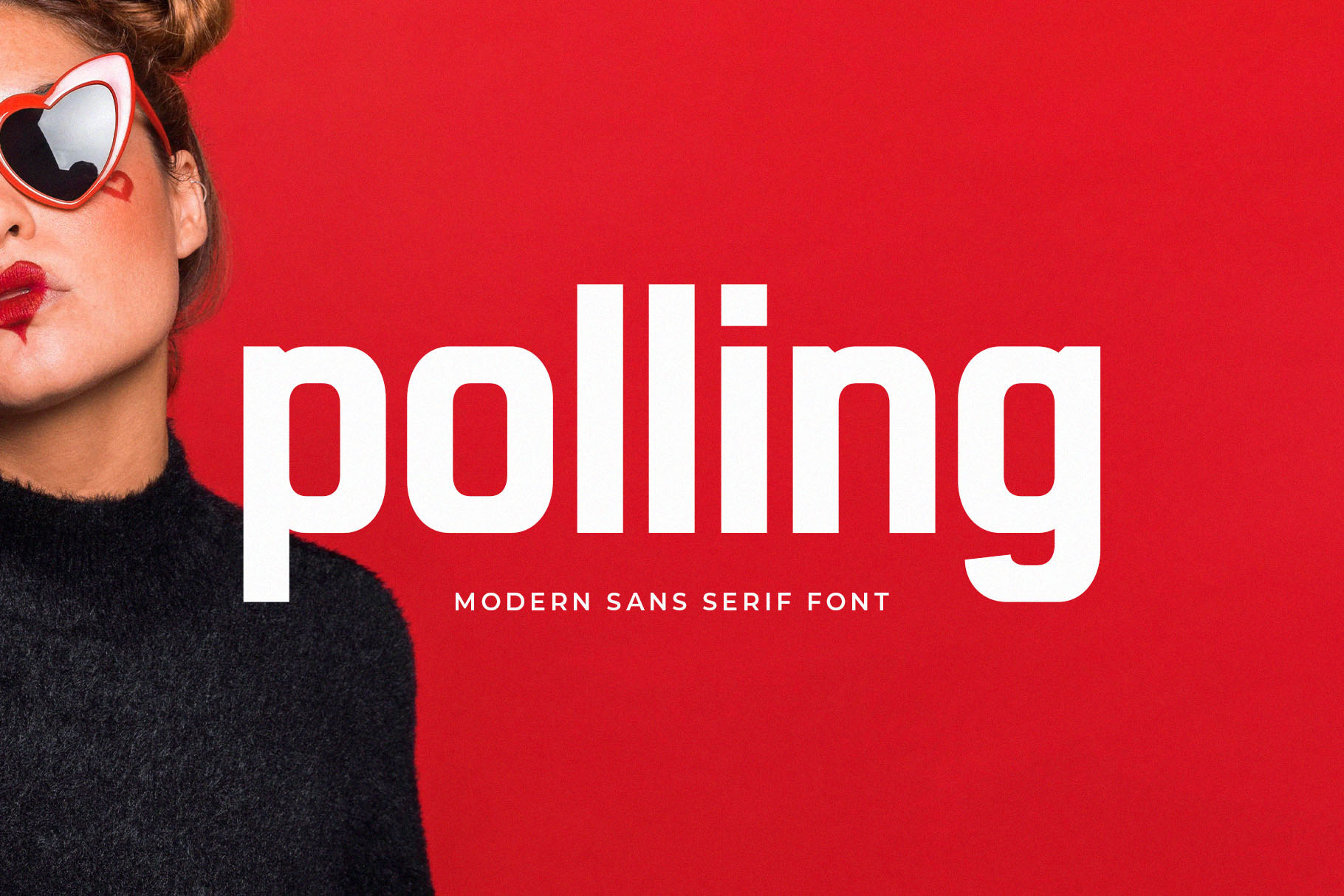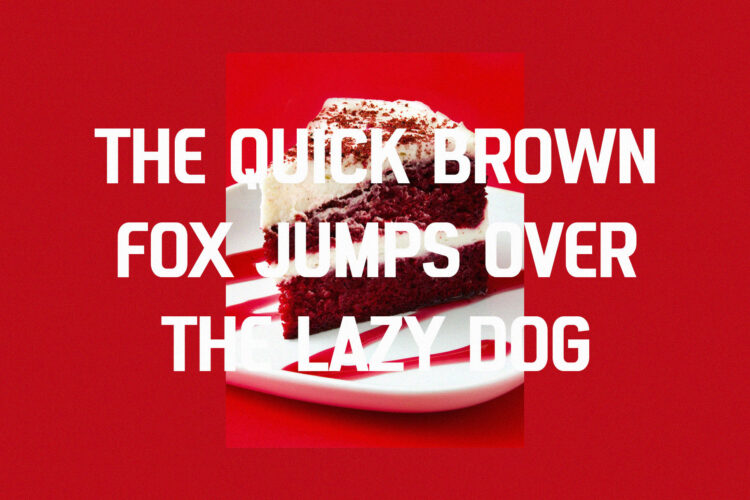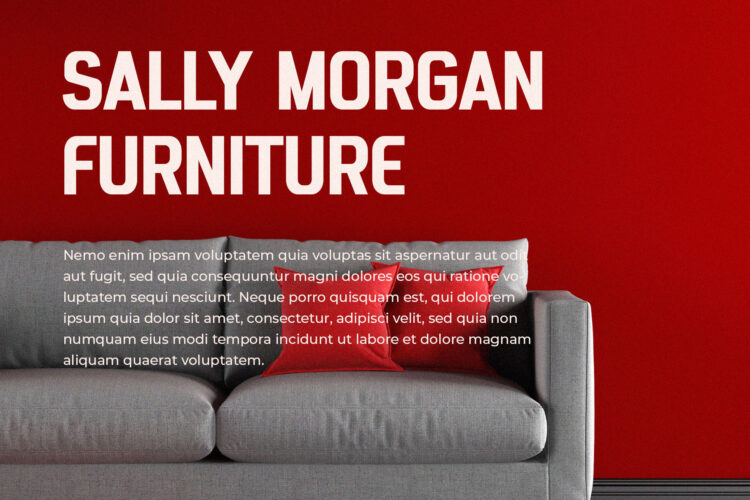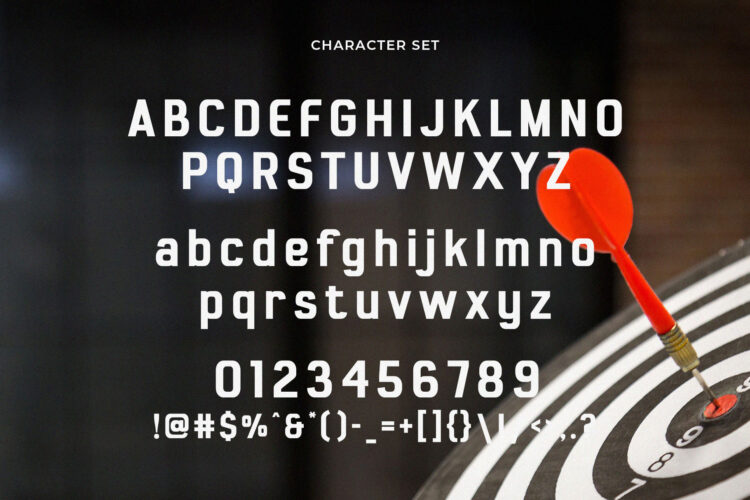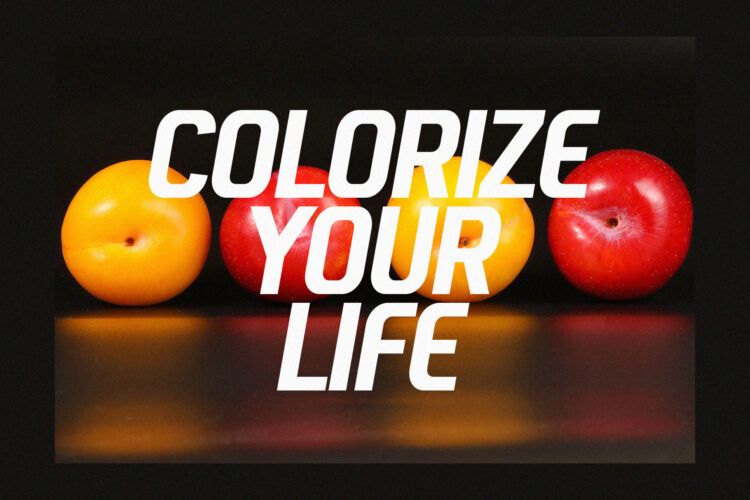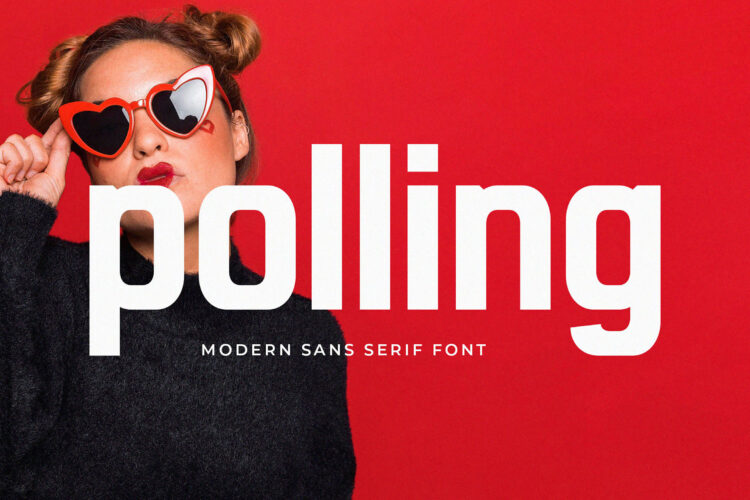
Introducing Polling – Modern Sans Serif.
Polling is a modern and simple font, best used as a display for headings, logos, branding, magazines, product packaging and invitations.